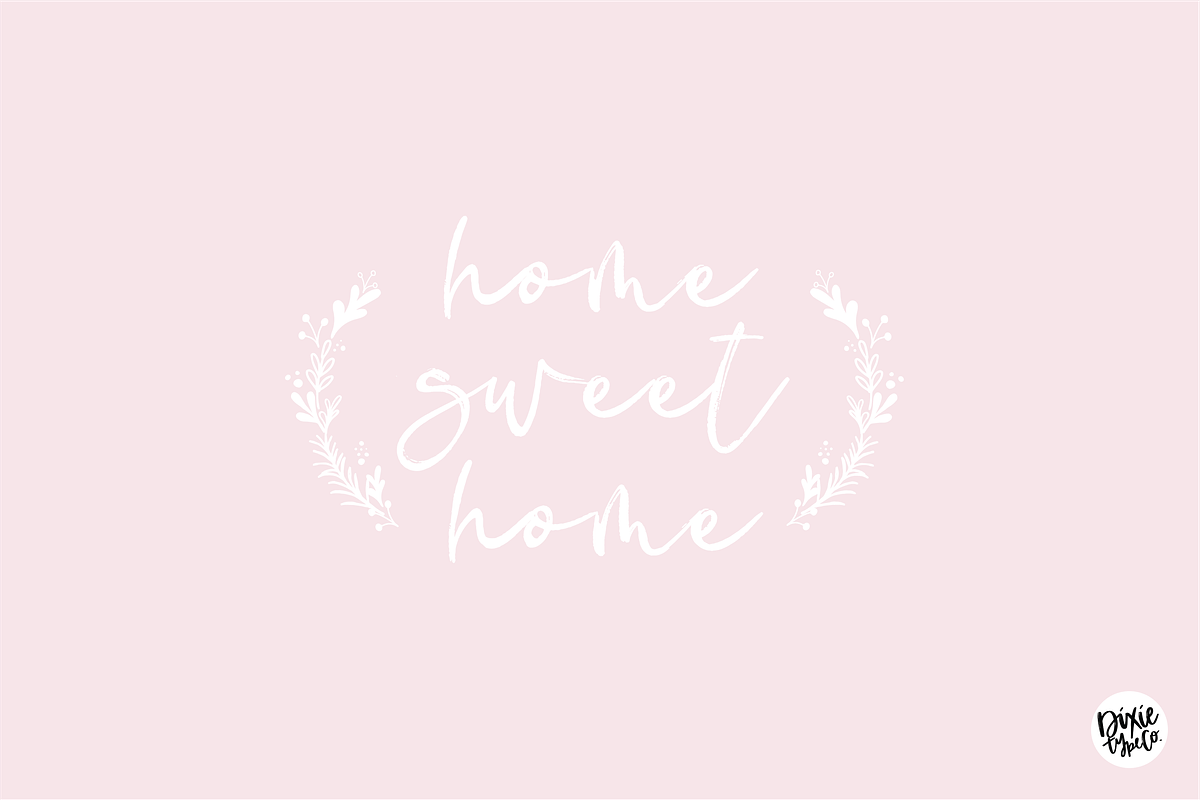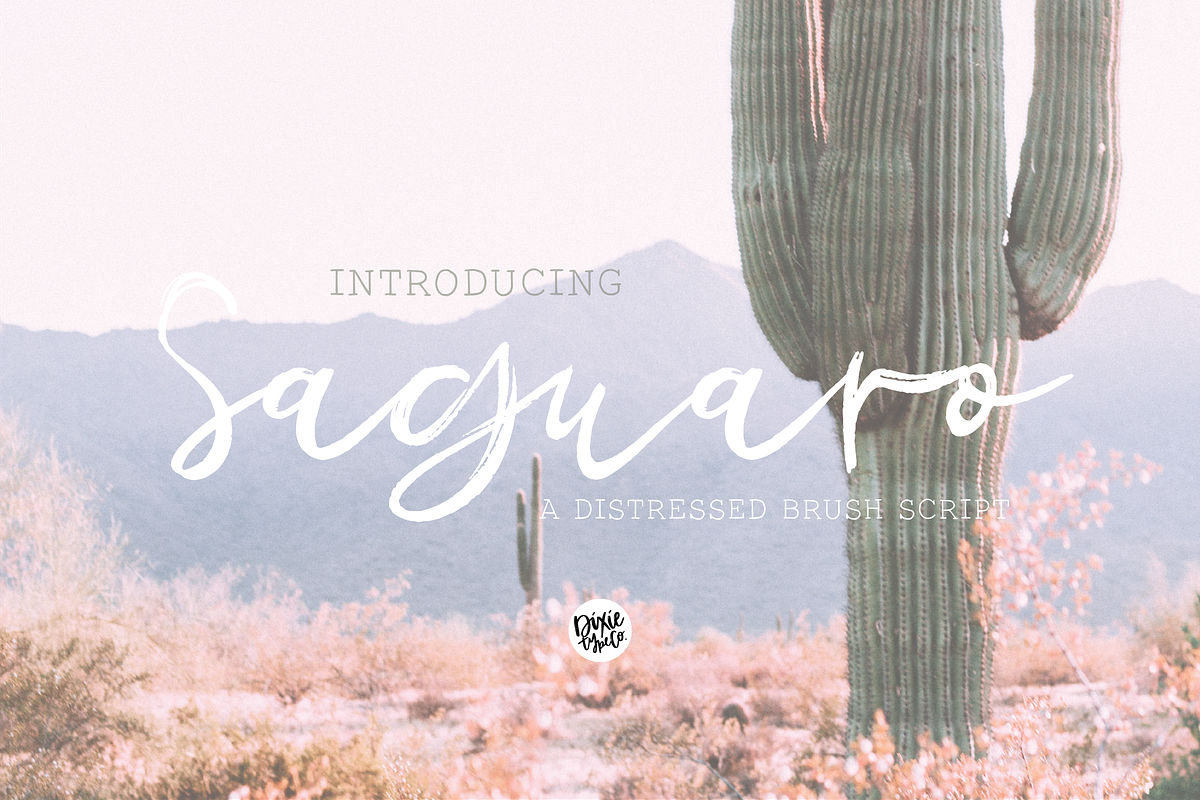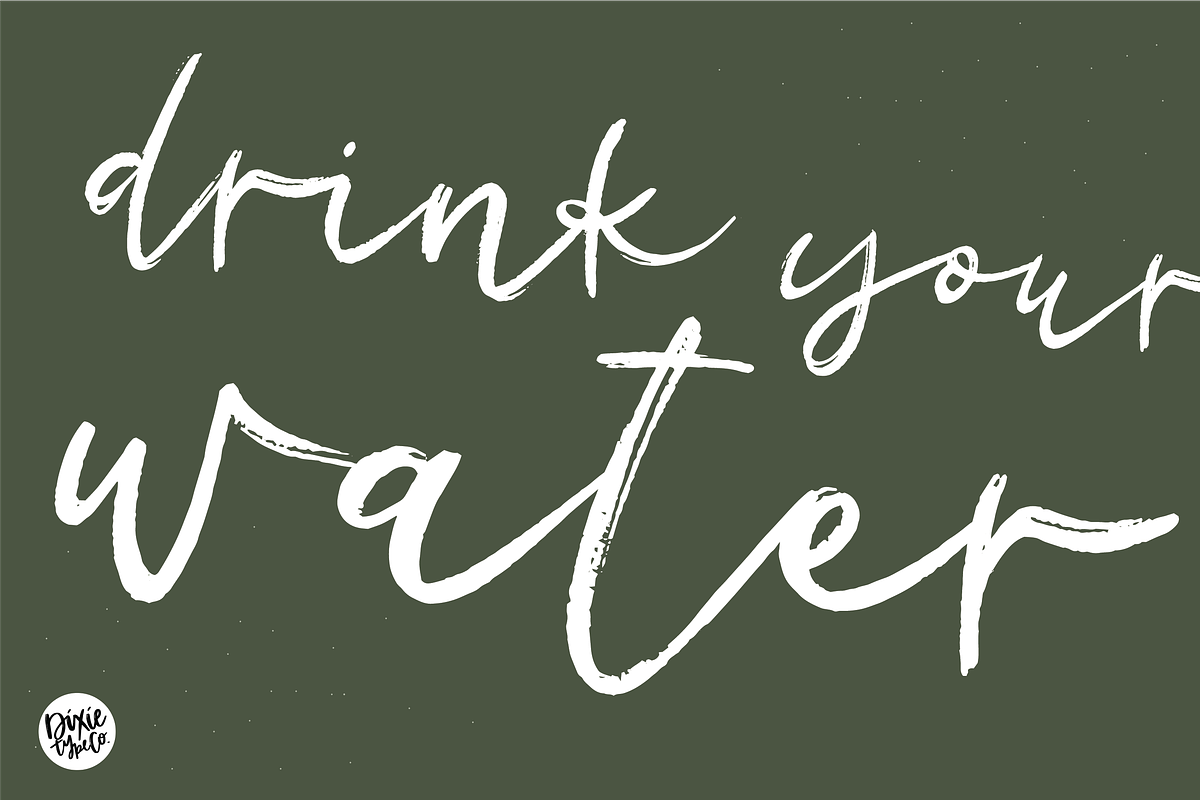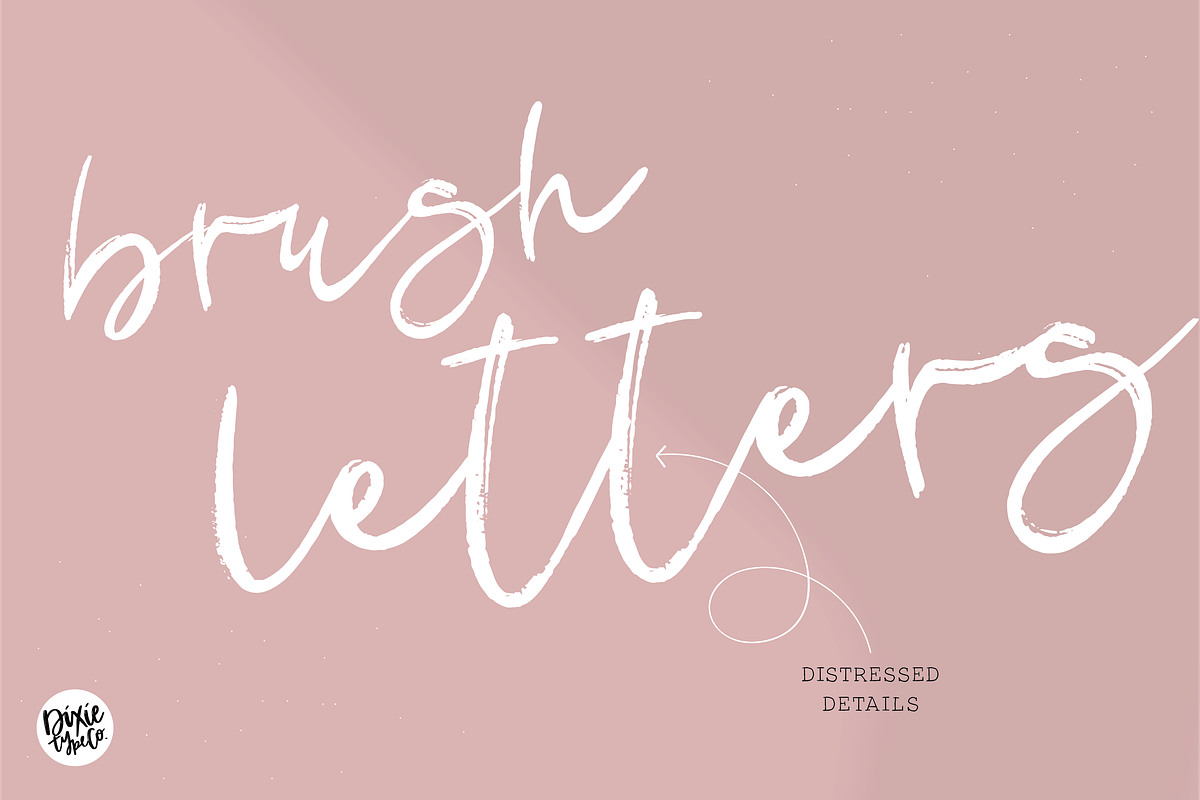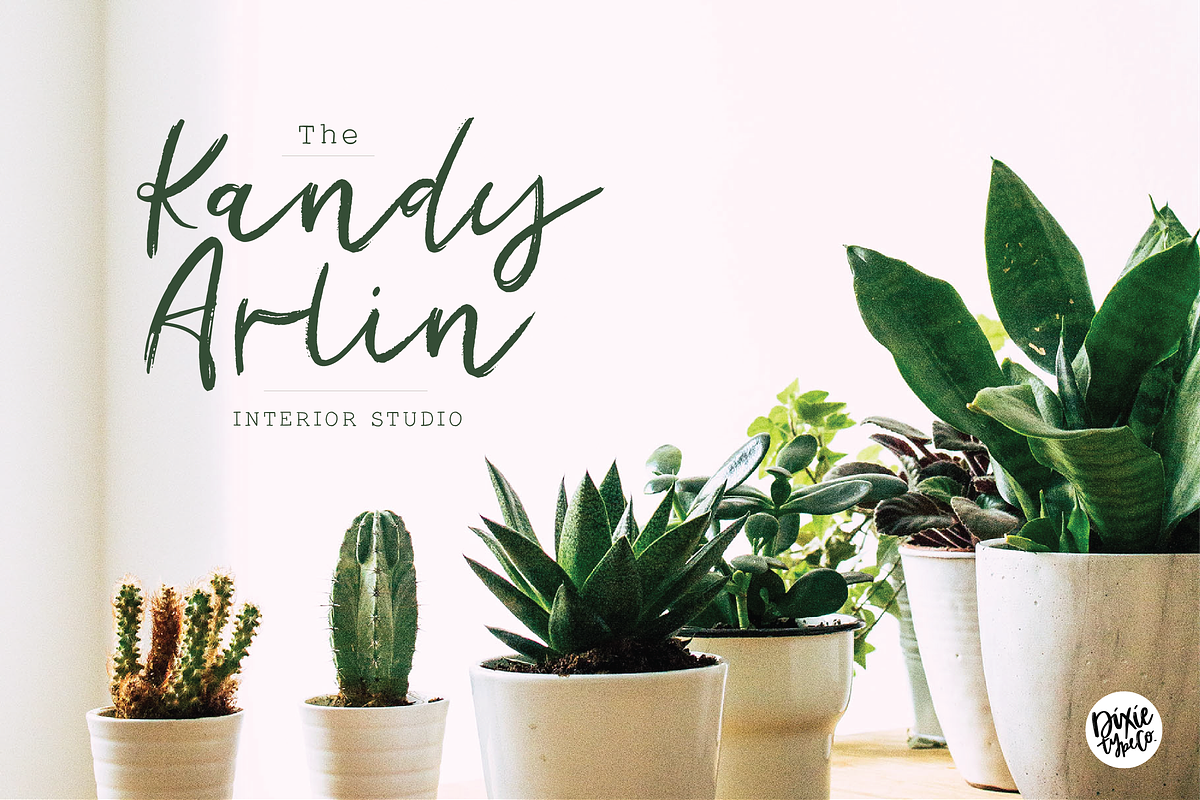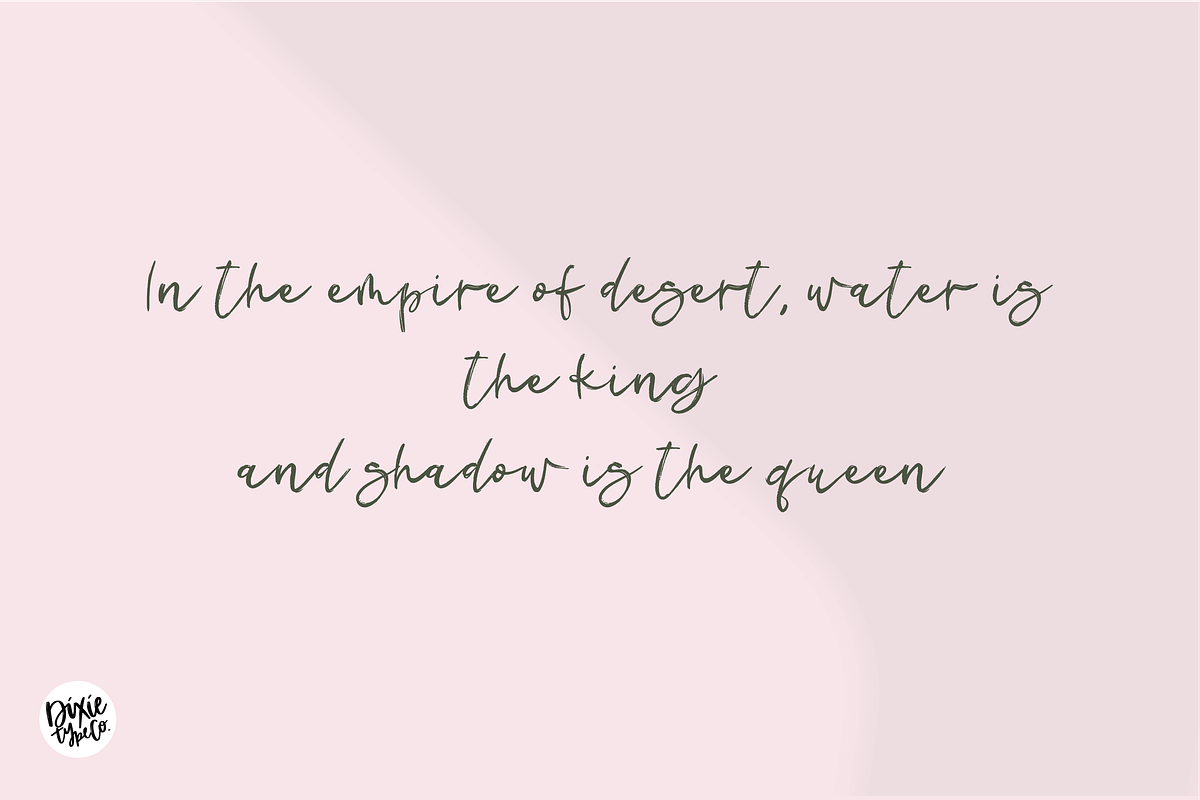
SAGUARO Distressed Brush Script
{ A typographic font hand lettered with love by Dixie Type Co. }
Bakery Brush is a dry brush lettered script font. This font has distressed edges and is not ideal for cutting.